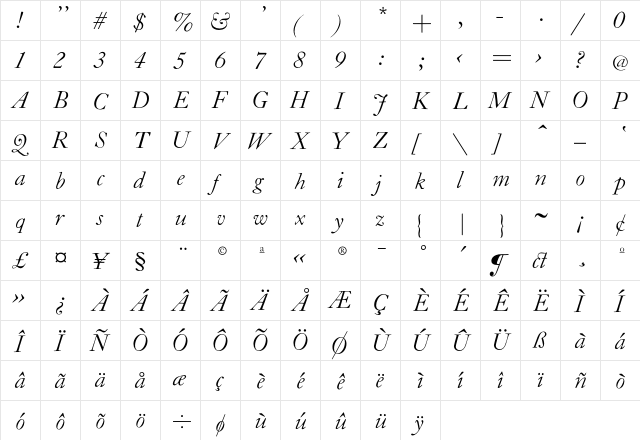
CaslonZL-Italic Regular Font Preview
CaslonZL-Italic Regular
CaslonZL-Italic Regular Font Details
Design Context for CaslonZL-Italic Typeface
CaslonZL-Italic is a composed and adaptable typeface that performs quietly and consistently across a wide range of design contexts. Its italic angle brings a sense of urgency and motion to the letterforms.
Pro Tip: Try CaslonZL-Italic for annotation and caption copy alongside an upright companion — the contrast in angle creates a dynamic but ordered typographic system.